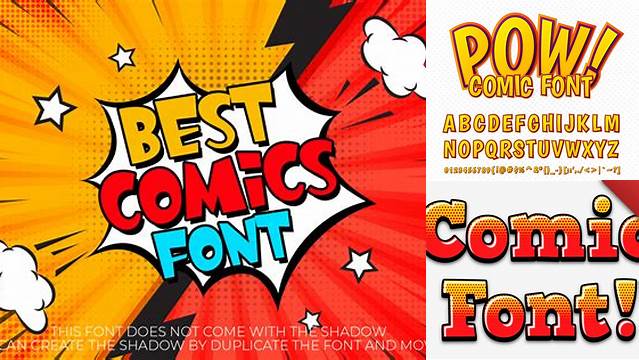
Comic Fonts: Download Free & Unleash Your Creativity!
Hey everyone! If you're looking to spice up your designs with a touch of fun and personality, you're in the right place. We're diving headfirst into the world of comic fonts free download, exploring everything from the classic bold styles to the quirky and expressive ones. Whether you're a seasoned designer, a budding comic artist, or just someone who loves to add a little pizzazz to their projects, you'll find some awesome font finds to help you bring your creative visions to life. So, buckle up and get ready to explore the vibrant world of comic fonts. These fonts are perfect for creating eye-catching titles, speech bubbles, and overall designs. The best part? Many of these fantastic fonts are available for comic mode font free download! Get ready to transform your projects with the power of typography. Let's get started!
Comic Fonts: Why Choose Them?
Choosing the right font is crucial to convey the right message. Comic mode font free download offers a unique way to communicate with your audience, especially when it comes to creative projects. Comic fonts are more than just letters; they're visual cues that evoke specific feelings and styles. They can bring a sense of humor, excitement, or adventure to your work, something that other fonts just can't do. The great thing about the comic fonts free download is that there's a huge variety out there, ranging from the classic bold styles that mimic traditional comic book lettering to more modern and quirky designs. This variety means you can find the perfect font to match the tone and style of your project. Whether you're working on a comic book, a graphic novel, a website, or even a fun social media post, a comic font can instantly elevate your design. Comic fonts can grab attention, making your content more memorable and engaging. They are also useful for establishing a certain style that can be easily recognized. Comic fonts often are bold, which makes them stand out in any context, but they also convey a sense of playfulness. Comic fonts can be very engaging, and people often view them in a positive way. Comic fonts can also create a sense of nostalgia, as many of them are inspired by classic comic books. The right font can set the tone for your design. They are great for headlines, titles, and any other place where you want to make a statement. Consider all the advantages that come with using the comic fonts free download, and bring your work to life!
Comic Fonts for Every Occasion
Different comic fonts are suited for different uses. Consider the style you want to portray. A bold, blocky font might work well for action-packed scenes, while a more rounded, friendly font is perfect for kids' comics or lighthearted projects. Knowing your audience is also critical. A comic font that's geared towards teenagers might not be the best choice for a professional presentation. Always keep in mind the context in which your font will appear. Also, think about how your font will interact with the other elements of your design. The font shouldn't clash with the other elements, but rather complement them to create a cohesive whole. The comic mode font free download is easy to get but it's up to you to pick the best one for your needs! Don't hesitate to experiment with different fonts. Trial and error is often the best way to find the right font, and with the comic fonts free download being readily available, it is easy to try different styles until you find one that works best for your project. Also, comic fonts have become more popular than ever because of the ease of their use, as well as their creative nature.
Comic Font Styles: A Deep Dive
Now, let's get into the nitty-gritty of comic font styles. There are many different types of comic fonts, each with its own unique personality. You'll find fonts that mimic the bold, blocky lettering of classic superhero comics, perfect for action-packed scenes and dramatic titles. Then there are the more rounded and playful fonts, often used in children's comics or lighthearted projects. These fonts are great for conveying a sense of fun and friendliness. Another popular style is the speech bubble font, designed to look like the text is actually coming out of a character's mouth. These fonts are a must-have for any comic artist. You'll also come across fonts that are inspired by specific artists or styles. These can be a great way to give your work a unique and authentic look. Understanding these different styles is essential when doing the comic mode font free download, as it will help you pick the perfect font for your project. Different styles have different functions, so picking the right one will make your work stand out, and improve the readability of your work as well. A great font is the one that complements your design, so think carefully about the style you are going for.
Bold & Blocky Comic Fonts
Bold and blocky fonts are the workhorses of the comic world. These fonts are instantly recognizable and perfect for capturing the attention of the reader. Their strong lines and thick strokes are ideal for headlines, titles, and any text that needs to stand out. These fonts often evoke a sense of power, action, and excitement, making them a great choice for superhero comics and action-packed scenes. When you're looking for the comic mode font free download, keep an eye out for fonts with these characteristics. They are perfect for creating dynamic and impactful designs. The fonts are easy to read and make it easy to get your message across. They convey authority and strength, which makes them a must-have if you're working on a comic book or graphic novel. Their bold appearance and simple shapes make them stand out on the page and provide a strong visual presence. If you want to show a sense of power, don't look further and get a comic mode font free download for your project!
Rounded & Playful Comic Fonts
On the other side of the spectrum, we have rounded and playful comic fonts. These fonts are all about fun, friendliness, and approachability. They have soft edges, smooth curves, and a generally cheerful vibe. They're perfect for kids' comics, lighthearted stories, and any project where you want to create a positive and inviting atmosphere. They're perfect for designing cute characters, or just adding a friendly touch to your work. When you're searching for a comic mode font free download, look for fonts with these characteristics, and you'll be sure to find a style that suits your needs. They are great for evoking feelings of joy and excitement. They are perfect for designing comics aimed at children. If you are planning on using these, you will need to search for the comic mode font free download, and get started on your work!
Implementing Comic Fonts in Your Designs
Once you've found the perfect comic fonts, it's time to put them to work! The first thing to do is to install the fonts on your computer. This is usually a straightforward process, involving double-clicking the font file and following the on-screen instructions. Next, open your design software of choice, whether it's Adobe Photoshop, Illustrator, Canva, or something else, and select your new font from the font menu. Now comes the fun part: experimenting with different font sizes, colors, and styles to find the perfect look for your project. Consider using the font for headlines, titles, and speech bubbles to give your design a comic book feel. You can also use it for smaller blocks of text, but be careful not to overdo it. The ultimate goal of the comic mode font free download is to allow you to express yourself. Don't hesitate to try different combinations, and to get creative! If you're not familiar with the software, there are plenty of online tutorials to guide you through the process. With a little practice, you'll be able to master the art of using comic fonts in your designs. Using the right font can change the atmosphere of your designs.
Font Pairing for Impact
Combining different fonts can add depth and visual interest to your designs. When you are working with the comic mode font free download, consider pairing your comic fonts with more neutral or classic fonts. This will provide a good contrast and prevent your design from looking too busy. Also, try to mix a bold comic font with a clean sans-serif font for body text. This is a great way to make your headlines pop while still ensuring your body text is readable. Also, you can use a script font with a comic font to make your design visually appealing. This will help you add a unique touch to your project. When pairing fonts, make sure the styles and weights complement each other. The goal is to create harmony, not chaos. Experimenting with different combinations is key, so don't be afraid to mix and match. The possibilities are endless, so have fun with it. The great thing is that the comic mode font free download allows you to try as many combinations as you wish! There are lots of available combinations, so you will have a lot of options.
Font Color and Effects
Color and effects can really enhance the look of your comic fonts. The right color can make your font pop off the page, while effects can add a sense of depth and dimension. Consider using bright, vibrant colors to give your text a lively feel. This is perfect for action scenes and exciting moments. You can also experiment with drop shadows, outlines, and gradients to create visual interest. These effects can make your text stand out and give it a unique look. When choosing colors, think about the tone and style of your project. A bright, energetic color palette is ideal for a fun-filled comic, while a more muted palette might be better for a serious graphic novel. Be sure to take a look at the comic mode font free download options, and find the perfect combo for your needs. Don't be afraid to experiment, and have fun. The best way to find the perfect color and effect is to try them out and see what works best for your design. Good effects and colors are a key to the success of your design.
Comic Font Licensing: Understanding the Rules
It's super important to understand the licensing terms of the fonts you download. Most free fonts come with a license that outlines how you're allowed to use them. These licenses can vary widely, so always read the fine print. Some fonts are free for personal use only, meaning you can use them for non-commercial projects. If you plan to use a font for commercial purposes, such as for a business logo or a project you'll be selling, you'll need to make sure it's licensed for commercial use. Some fonts are under the SIL Open Font License, which allows for free use in personal and commercial projects, while others might require you to purchase a commercial license. When downloading your comic mode font free download, always check the license details to avoid any legal issues. Understanding the rules is crucial to protecting yourself, so take your time reading the details, and don't hesitate to search for clarification. The license will tell you exactly how you're allowed to use the font, so you know you're in the clear. Always being in the clear is an important thing, so make sure you get a comic mode font free download from a reliable source.
Commercial vs. Personal Use
There is a big difference between commercial and personal use, especially when it comes to fonts. Personal use means using a font for your own personal projects, like creating birthday cards, designing a personal blog, or experimenting with graphic design for fun. Commercial use, on the other hand, involves using a font for any project that generates revenue, such as logos, websites, marketing materials, or anything you plan to sell. Many free fonts are available for personal use, but require a commercial license if you're using them for a business. Using a font commercially without the proper license could lead to legal trouble, so it's essential to know the difference. As you do the comic mode font free download, always check the license agreement to ensure the font can be used for your intended purpose. The license agreement will provide information on both personal and commercial use, so read it carefully. You should check the license agreement to ensure the font can be used. This is a great way to keep yourself safe.
Font Attribution: Do You Need It?
Whether or not you need to provide attribution for a font depends on the license. Some licenses require you to credit the font designer, while others do not. If the license requires attribution, it usually specifies how to do it. This might involve including the font name and designer's name in the credits or a specific place in your design. For the comic mode font free download, be sure to check the license agreement to see if attribution is required. This shows respect for the designer, and is a good practice, even if it's not required. If you're using a font on a website, providing a link to the font designer's website is a nice touch. Remember, giving credit where it's due is always a good thing. It helps promote the designer's work. So, when you do your comic mode font free download, you must also take care of the license.
Troubleshooting Comic Font Issues
Sometimes, things don't go exactly as planned. You might encounter issues with your comic fonts, but don't worry! These are usually easily solved. One common issue is the font not appearing in your design software. Make sure the font is correctly installed on your computer and that your software is up to date. If you've installed the font and it still doesn't appear, try restarting your software or even your computer. Another problem is distorted or unreadable text. This can be caused by using the wrong font size, using an unsupported file format, or even software glitches. Always double-check your font settings, and if necessary, try a different font or a different file format. Always be sure to check the comic mode font free download file, and make sure that it can work. These issues are usually fixable, and once you do, the fun begins! Troubleshooting is a great skill to have, as it will help you get your designs to work, while also allowing you to use the comic mode font free download in a more efficient manner.
Font Installation Problems
Sometimes, you may encounter problems when you try to install a font. Make sure that the font file is not corrupted, and that you are using a compatible operating system. It might also be helpful to temporarily disable any security software, which can sometimes interfere with the installation process. If you're still having trouble, try downloading the font again from a different source. When you do the comic mode font free download, make sure the source is reliable. Try installing the font manually by dragging the font file into the appropriate folder in your operating system. If none of these steps work, it might be a good idea to consult the font designer's website or the software documentation. Most problems can be resolved with some research, and the experience will help you to solve other similar problems in the future. Installing the comic mode font free download is a very simple process. With some basic troubleshooting, you will be able to resolve the problems.
Font Display and Readability Issues
Sometimes, the font might look distorted, blurry, or simply hard to read, even after it's been installed correctly. This can be due to a variety of factors, like the font size being too small, or the color not providing sufficient contrast. You should always try different font sizes and colors to find the perfect one for your project. You should also consider the background color of your design. Experimenting with different colors and sizes might help to improve the font's readability. If you're still having issues, there might be a problem with the font file itself. Try downloading the font again from a different source. Also, ensure that your design software is up to date, as older versions might not properly support the font. When you do the comic mode font free download, make sure that the fonts are compatible with your operating system. It's always a good idea to try a different font if nothing else works. Display and readability issues are common, but easily solvable.
Comic Fonts for Web Design: Tips & Tricks
Comic fonts can be an excellent addition to your website, but it's important to use them strategically. Here are a few tips and tricks to help you make the most of these fonts. Firstly, be mindful of readability. Comic fonts are often more decorative than functional, so it's important to ensure that your text is still easy to read. Avoid using comic fonts for large blocks of text, as they can be difficult to read. Instead, use them for headings, titles, and other short pieces of text where you want to make a statement. When using the comic mode font free download for web design, consider using it to highlight your brand identity, or even as a way to add personality to your design. Remember that you must consider the tone and style of your website. A comic font might not be the best choice for a professional website, but it can be perfect for a fun and creative site. These simple steps are easy to put in place, and will make sure your design is a success.
Web-Safe Comic Fonts
Web-safe fonts are fonts that are pre-installed on most computers and operating systems, ensuring that your text displays correctly for all of your visitors. There aren't many "web-safe" comic fonts. The best practice is to use a standard, web-safe font for your body text, and then use a comic font for headings and other decorative elements. This will ensure that your main content is readable for everyone. If you must use a comic font for body text, make sure to provide a fallback font in your CSS. This means that if the comic font isn't available on a user's device, the fallback font will be used instead, to provide a good experience for all your visitors. When you use the comic mode font free download, make sure to test your design on various browsers and devices to ensure the fonts display correctly. This will help you to make sure that everyone can see your work, and that your design will be a success. Web-safe fonts are important to making your site viewable.
Optimizing Comic Fonts for the Web
Optimizing your comic fonts for the web can improve loading times and enhance the user experience. One of the most important things you can do is to choose the right font format. Web fonts are often available in various formats, such as WOFF and WOFF2, which are designed for use on the web. You can find the best format when you do the comic mode font free download. Make sure to optimize your fonts for the web. This can reduce their file size, which can lead to faster loading times and a better experience for your visitors. When you're embedding comic fonts, make sure to use CSS to specify the font. This will ensure that your text displays correctly. You should also test your website on different browsers and devices to make sure that the font displays correctly. There are some great tips, so be sure to implement them in your website! Optimized fonts can make a huge difference to your visitors.
Comic Font Generators: Quick & Easy Solutions
Sometimes, you might need a comic font in a pinch or want to create a customized look. That's where comic font generators come in. These online tools allow you to create custom text with a comic book style, without needing to download a specific font. Most comic font generators are easy to use. You simply type in your text, choose your desired style, and generate the image or text. These tools are often free to use, making them an ideal solution for quick and easy designs. Many generators offer a range of options, such as different fonts, colors, and effects, so you can create a unique look in a short period. They can be great for creating speech bubbles, headlines, or social media posts. When you're in a rush, or don't want to spend time searching for the comic mode font free download, comic font generators are the perfect way to create a comic-style design. They make the design process easy and accessible, and can be used by anyone, regardless of their design skills. They give you the opportunity to use the comic mode font free download without getting the actual font files.
Using Online Comic Font Generators
Online comic font generators are a great way to create comic-style text quickly and easily. To get started, simply search for "comic font generator" online. You'll find many free tools to choose from. Once you've selected a generator, type in your text in the provided box. You can then choose from various options, such as different fonts, colors, and effects. Some generators also allow you to add speech bubbles or other design elements to your text. Once you're happy with your design, you can usually download it as an image file or copy the text. This allows you to easily integrate it into your projects. Comic font generators are a great alternative to searching for the comic mode font free download, and can be useful for beginners and experienced designers. These generators are perfect for creating a variety of designs. Make sure to find the right one for your work.
Customizing Your Comic Text
Customization is key when using comic font generators. Most generators offer a range of options to help you personalize your text. You can typically adjust the font, size, color, and effects. You can even add outlines, drop shadows, and other special effects. By experimenting with these options, you can create a unique look that matches your project's style. Be sure to try different combinations to find the perfect look. You can easily change the text and start over if you don't like the result. When you are using the comic mode font free download you also want to customize them. Customization is a great way to show your creativity. Be sure to give it a try!
Comic Fonts for Branding and Logos
Comic fonts can be used to create a unique and memorable brand identity. If you are considering a comic font for your logo, make sure it aligns with your brand's personality and values. For example, a playful, rounded font might be perfect for a kids' store, while a bold, action-oriented font could work well for a gaming company. Comic fonts can make your brand stand out and make it more memorable. They can also create a sense of fun and approachability. When choosing a comic font for your brand, consider what emotions and messages you want to convey. Comic fonts can really make your brand recognizable, and they are also fun and memorable. Always make sure to pick a font that suits your brand. To do that, you might want to look for the comic mode font free download so that you can be creative and customize the logo.
Designing Comic Logos
Creating a comic logo involves more than just choosing a font. You also have to take the overall design of the logo into consideration. The logo should be simple, memorable, and easy to recognize. The best logos are simple and easy to read. Use a clear and legible comic font, and avoid using too many different fonts or effects. The best way to do that is to make sure that the comic mode font free download suits your needs. The logo should work well in various sizes and contexts. It should be eye-catching and memorable. Also, always make sure that your design is consistent with your brand. If your brand is friendly and approachable, the logo should reflect that. If your brand is serious and professional, you might want to consider a more subtle approach. Always make sure that the logo is the correct fit for your brand. It should represent what your brand is about. A good logo is crucial for a successful brand. To do that, you can find the comic mode font free download that you need and design the logo.
Comic Font Usage in Brand Materials
Once you've chosen the perfect comic font for your brand, it's time to put it to work. The font should be used consistently across all of your brand materials, including your website, social media, business cards, and marketing materials. This helps to create a cohesive brand identity. Comic fonts can also add a touch of personality to your brand, and can convey the same messages as your logo. When used correctly, they can become an integral part of your brand identity. When you do the comic mode font free download, think about how you will use the font across your brand materials. Ensure you know the proper usage guidelines. Using a comic font consistently across your brand materials can help you to establish brand recognition. The consistent look and feel will help your target audience to identify with your brand. It can be very beneficial if you want to boost your brand recognition, and the comic mode font free download is what you need!
Combining Comic Fonts with Other Styles
Mixing and matching fonts is a great way to add interest and depth to your designs. When working with comic fonts, consider combining them with other font styles to create a balanced and visually appealing result. Pairing a bold comic font with a clean sans-serif font can create a striking contrast. This is perfect for headlines and body text. Combining a comic font with a classic serif font can create a more elegant look, and also add a touch of playfulness. Experimenting with different combinations can lead to surprising and creative results. The key is to find a balance between the different font styles. Using different font styles is a great way to enhance your design, and the comic mode font free download is an amazing source. So be creative and enjoy!
Contrast and Harmony
When combining different font styles, you need to focus on contrast and harmony. Contrast means using different styles, weights, and sizes to create visual interest. For example, pairing a thick, bold comic font with a thin, delicate sans-serif font can create a dramatic contrast. Harmony means creating a sense of balance and cohesion in your design. When you create contrast, be sure that the fonts work well together and that the overall design is visually appealing. The best designs are the ones that combine contrast and harmony. If you're using the comic mode font free download, be sure to experiment with other fonts. These are the perfect ways to bring your design to life. Your design will come alive in your hands!
Font Pairing Examples
There are many effective font pairing combinations. Combining a classic comic font with a clean sans-serif font is a great example, and is very popular, especially for headlines. This combination provides a balance between the playful and the professional. You can also pair a rounded comic font with a more geometric sans-serif font to create a modern and playful look. For a more vintage feel, combine a comic font with a classic serif font. Always be sure to get a comic mode font free download that suits your needs. A great way to do this is to look for inspiration online. You will get to see the different combinations and decide which ones are right for your work. There are many options, so you're bound to find one that works for you!
Creative Projects Using Comic Fonts
Comic fonts are perfect for a wide range of creative projects. They can make your work unique. Here are a few ideas to get you started. Use them for comic books, graphic novels, and any other project that involves storytelling through visuals and text. Comic fonts can be a good way to make your project stand out. You can also use them for social media posts, creating fun and engaging content for your followers. They are great for creating memes, posters, and other promotional materials. If you're planning on using the comic mode font free download, then you must consider the best ways to show off your project. Also, the right font is going to make your project pop. Comic fonts will make your project shine, and will make you more creative, as well.
Comic Book & Graphic Novel Design
Comic fonts are at the heart of comic book and graphic novel design. Comic fonts bring life to the characters, and also establish the mood and tone. Comic fonts add personality to your work. When you are working on your project, focus on the font. Make sure you use the correct fonts to create an awesome visual experience. The key to a great comic book or graphic novel is consistency. When designing these types of projects, be sure to use the right font for each context. Choosing the right font can be tough, so consider the comic mode font free download options. The comic mode font free download will allow you to experiment. With some patience, you can create the perfect comic book or graphic novel.
Social Media & Marketing Materials
Comic fonts are a great way to create social media posts, advertisements, and other marketing materials. These fonts are great for creating eye-catching graphics that will capture the attention of your audience. Also, they add a touch of personality to your content. These are great for creating fun and engaging content. Social media is a great way to engage with your audience. It is also an easy method to share your work and receive feedback. Be sure to use the correct font for the job! Before you get started, always consider the comic mode font free download options. So get creative and create the best social media marketing content.